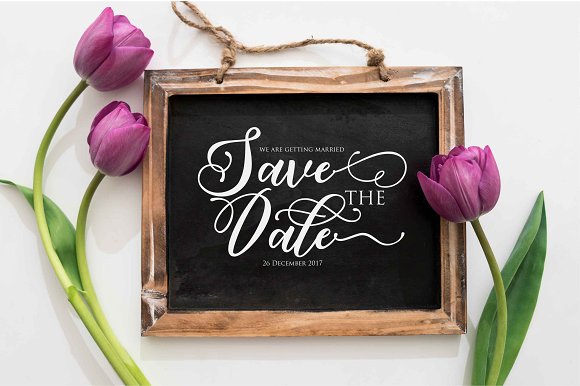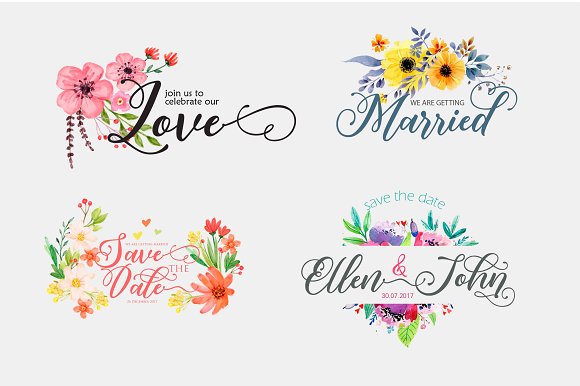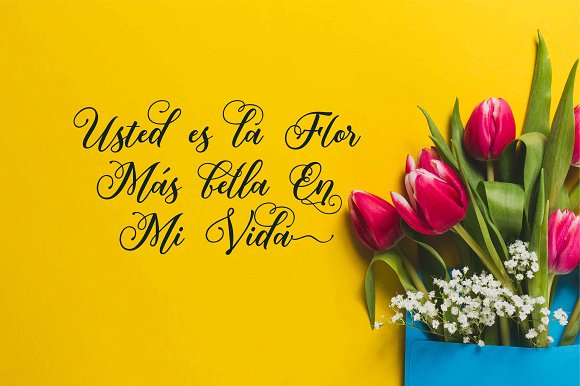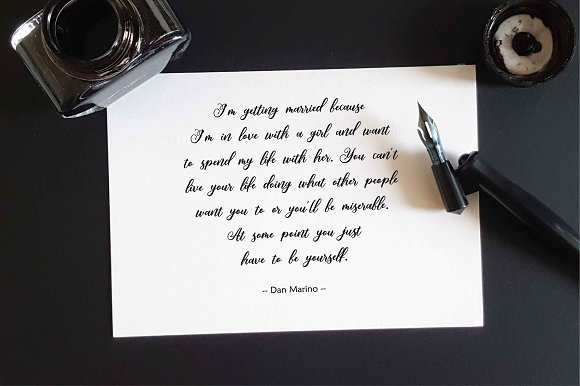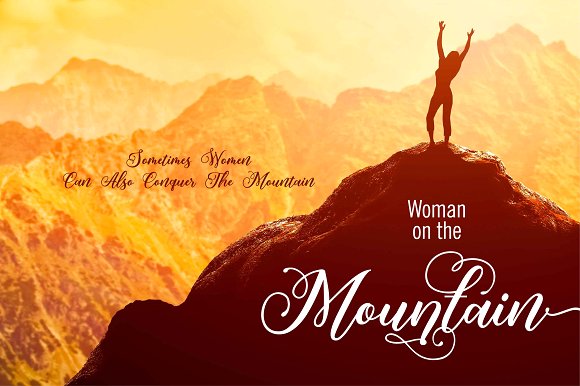
Mahligai Font
About Mahligai Font
Mahligai, a beautiful handwritten script. It’s a fluid font that works well in many different types of projects.
This professional looking font is easy to read and works well for marketing & branding as well as craft projects.